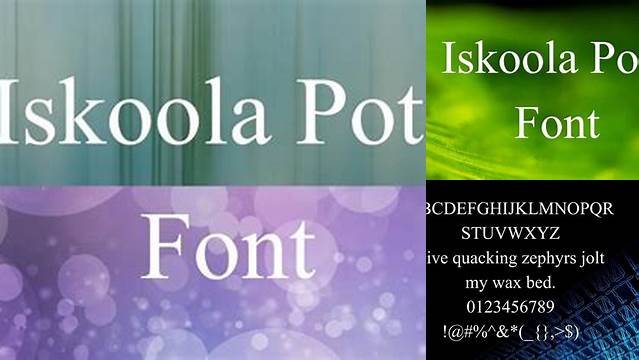
Hey guys! Are you looking to add a unique flair to your projects? Then you've probably heard about the Iskoola Pota font. This font has a distinct personality, perfect for a wide range of design applications. Let's dive into everything you need to know about the Iskoola Pota regular font, including where to find a free download and how to use it effectively.
1. What is Iskoola Pota Regular Font?
Let's start with the basics. What exactly is Iskoola Pota regular font? Iskoola Pota is a typeface known for its distinctive and elegant appearance. It often features a blend of traditional and modern elements, making it versatile for various design projects. Think of it as a font that’s both stylish and readable, which is a pretty sweet combination, right? The Iskoola Pota regular font is the standard version of this typeface family, providing a balanced and clean look that's suitable for body text as well as headings. It's all about that perfect mix of looking good and being functional. This font was crafted with attention to detail, ensuring that each character complements the others, contributing to an overall harmonious design. When you're choosing a font, you want something that not only catches the eye but also maintains readability, and Iskoola Pota hits that sweet spot. Whether you're working on a website, a poster, or a document, this font can add a touch of class and sophistication. Plus, the fact that it can often be found as a free download makes it an even more attractive option for designers and creatives on a budget. So, in a nutshell, Iskoola Pota regular font is your go-to when you need a font that looks professional without being boring.
2. Key Features of Iskoola Pota Font
So, what makes Iskoola Pota font stand out from the crowd? Well, there are several key features that make it a favorite among designers and typographers. Firstly, its legibility is top-notch. The characters are designed with clarity in mind, making it easy to read in both print and digital formats. This is super important because a font that looks pretty but is hard to read? No bueno. Secondly, Iskoola Pota often boasts a unique character set. This means it includes special glyphs, ligatures, and alternate characters that add a touch of personality to your designs. These little extras can really elevate your work, giving it a polished and professional feel. The versatility of Iskoola Pota font is another major plus. It works well for headings, body text, and even logos. It's like the Swiss Army knife of fonts! Whether you're designing a sleek website, a captivating brochure, or a professional document, Iskoola Pota can adapt to your needs. Plus, its aesthetic appeal is undeniable. The font often combines classic and contemporary elements, making it suitable for a wide range of design styles. Think elegant invitations, modern web layouts, and everything in between. And let's not forget the accessibility factor. The fact that Iskoola Pota is often available as a free download makes it a fantastic option for both seasoned designers and those just starting. You get a high-quality font without breaking the bank, which is always a win-win. In summary, the key features of Iskoola Pota font – its legibility, unique character set, versatility, aesthetic appeal, and accessibility – make it a standout choice for any project.